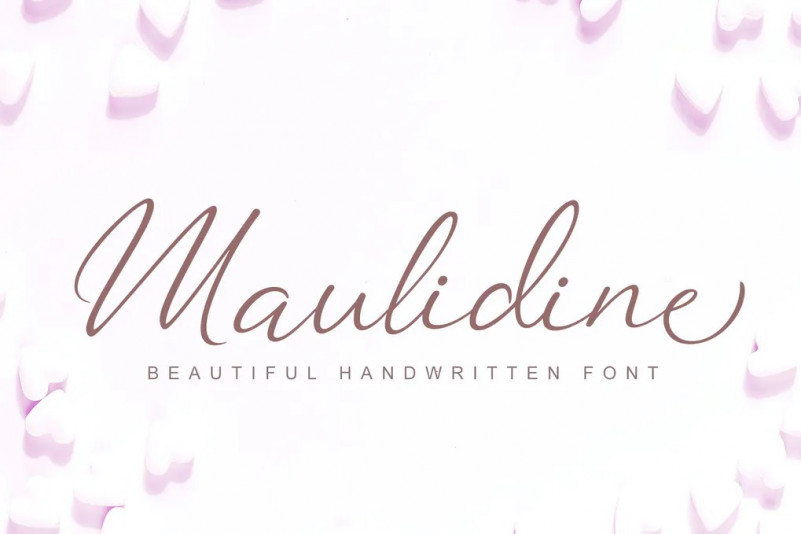
Maulidine Font
The Madeline is a beautiful modern calligraphy font. It includes elegant ending swashes which makes it perfect to give a luxurious feel to your designs.
It’s perfect for logos, product packaging, wedding invitations, branding, headlines, signage, labels, signature, book covers, posters, quotes and more.